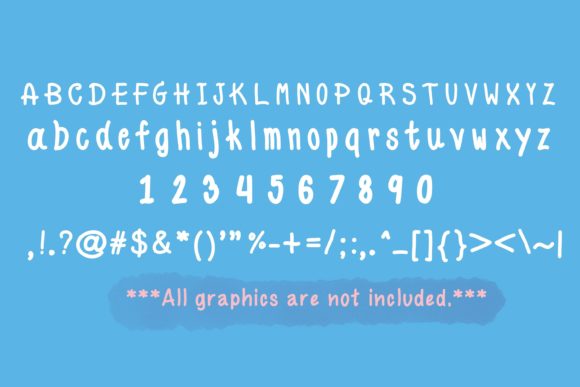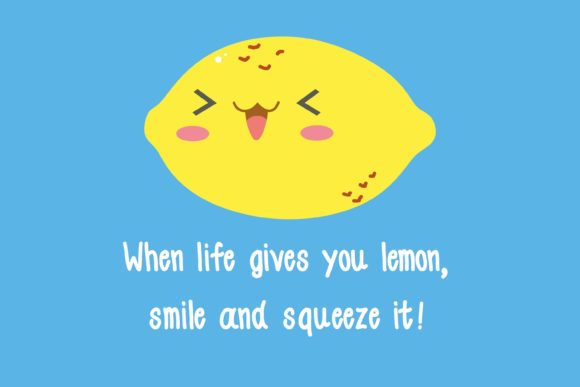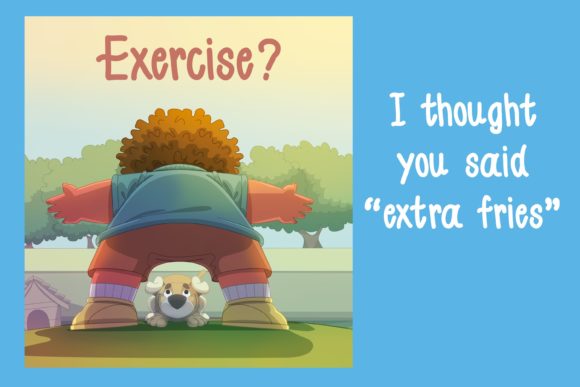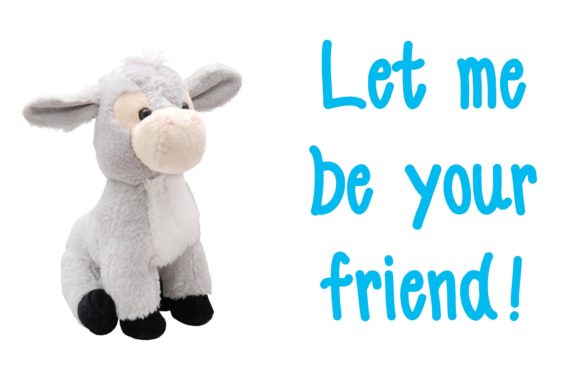
Casilda Font: Add a Touch of Whimsy to Your Designs
Are you looking for a font that can add a dash of personality to your designs? Look no further than Casilda Font, a delightful handwritten font that’s sure to bring a smile to your face. With its sweet and lively style, Casilda is the perfect choice for designers and crafters who want to add a touch of whimsy to their work.
What is Casilda Font?
Casilda Font is a modern handwritten font that’s designed to evoke a sense of playfulness and joy. Its unique and charming letterforms are carefully crafted to make your designs stand out from the crowd. Whether you’re working on a branding project, a craft tutorial, or a social media graphic, Casilda Font is sure to add a touch of personality to your work.
Key Features of Casilda Font
- Handwritten style: Casilda Font has a beautiful handwritten style that’s full of character and personality.
- Sweet and lively: The font’s sweet and lively style makes it perfect for designs that need a touch of whimsy and playfulness.
- Unique letterforms: Casilda Font’s unique letterforms are carefully crafted to make your designs stand out from the crowd.
- Easy to read: Despite its playful style, Casilda Font is easy to read and works well in a variety of design applications.
Uses for Casilda Font
Casilda Font is a versatile font that can be used in a variety of design applications, including:
- Branding and logos: Use Casilda Font to create a unique and memorable brand identity that’s full of personality.
- Crafting and DIY projects: Add a touch of whimsy to your craft tutorials and DIY projects with Casilda Font.
- Social media graphics: Use Casilda Font to create eye-catching social media graphics that stand out from the crowd.
- Invitations and cards: Casilda Font is perfect for creating invitations, cards, and other paper crafts that need a personal touch.
Tips for Using Casilda Font
Here are a few tips for getting the most out of Casilda Font:
- Use it with color: Casilda Font looks great when paired with bright and bold colors, so don’t be afraid to add some color to your designs.
- Experiment with sizes: Casilda Font works well in a variety of sizes, so experiment with different sizes to find the one that works best for your design.
- Pair it with other fonts: Casilda Font pairs well with other fonts, so don’t be afraid to experiment with different font combinations.
Casilda Font is a delightful handwritten font that’s sure to add a touch of whimsy and personality to your designs. With its sweet and lively style, unique letterforms, and versatility, Casilda Font is the perfect choice for designers and crafters who want to create designs that stand out from the crowd. So why not give Casilda Font a try and see how it can brighten up your designs?